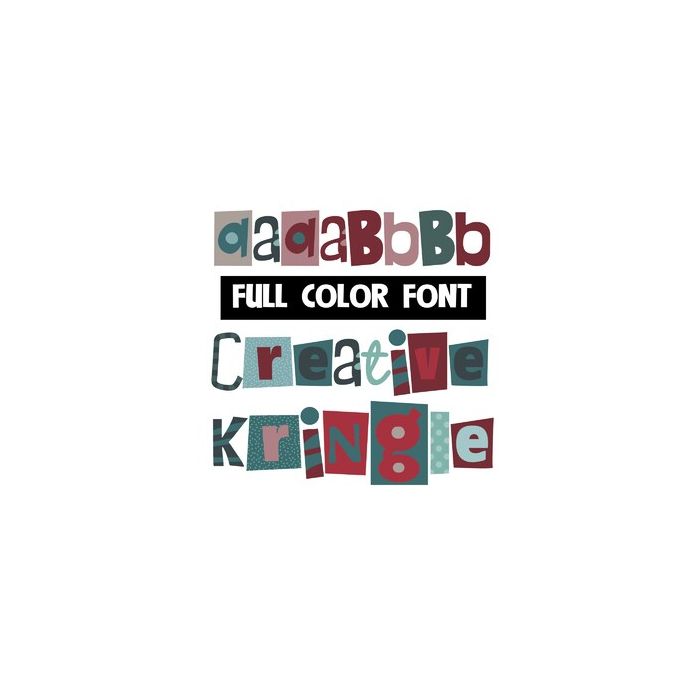
This full-color font features a variety of font styles, textures and colors in Christmas colors. There is a second version of each upper and lowercase letter in a different color available through Silhouette's glyph map.